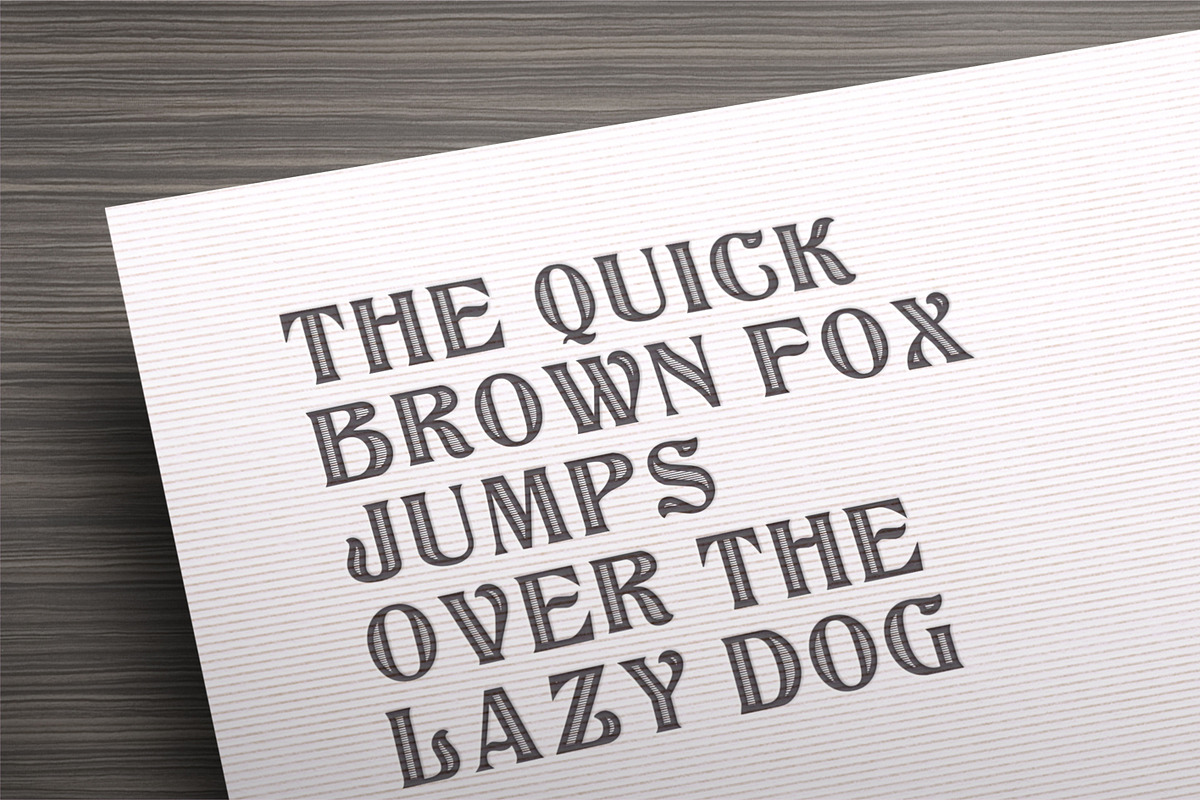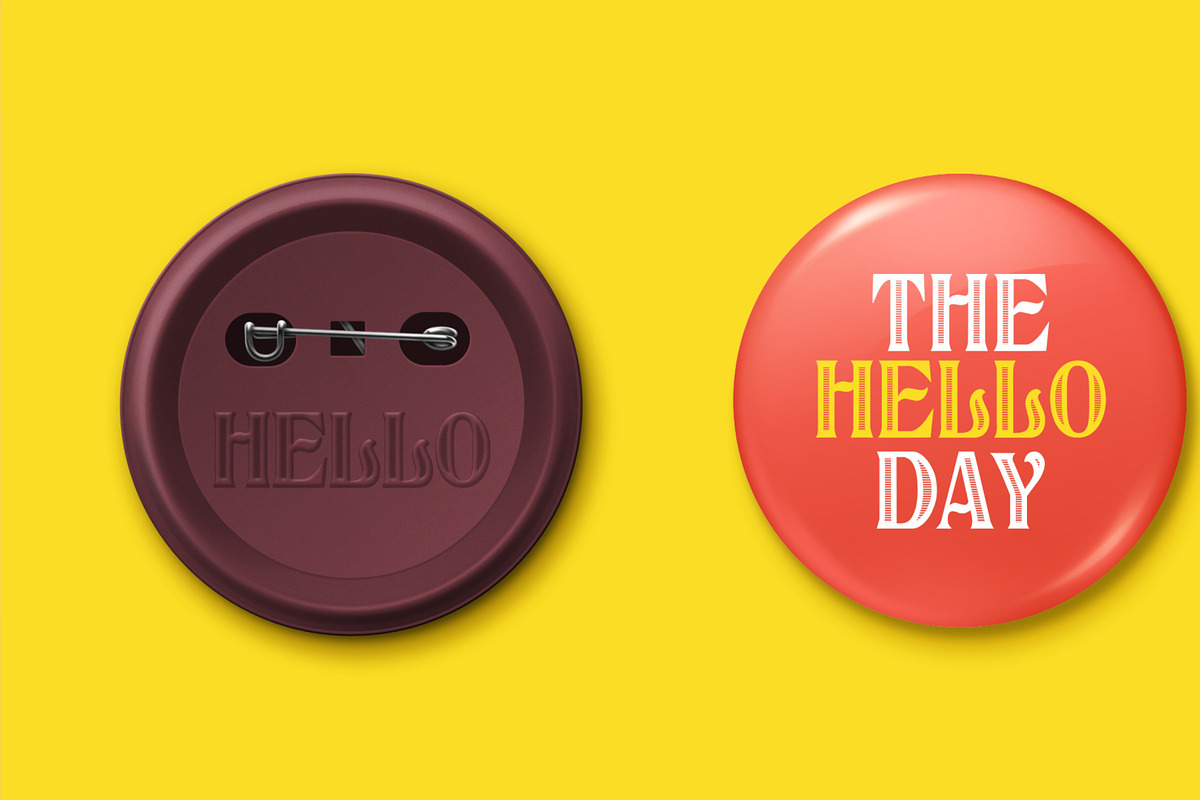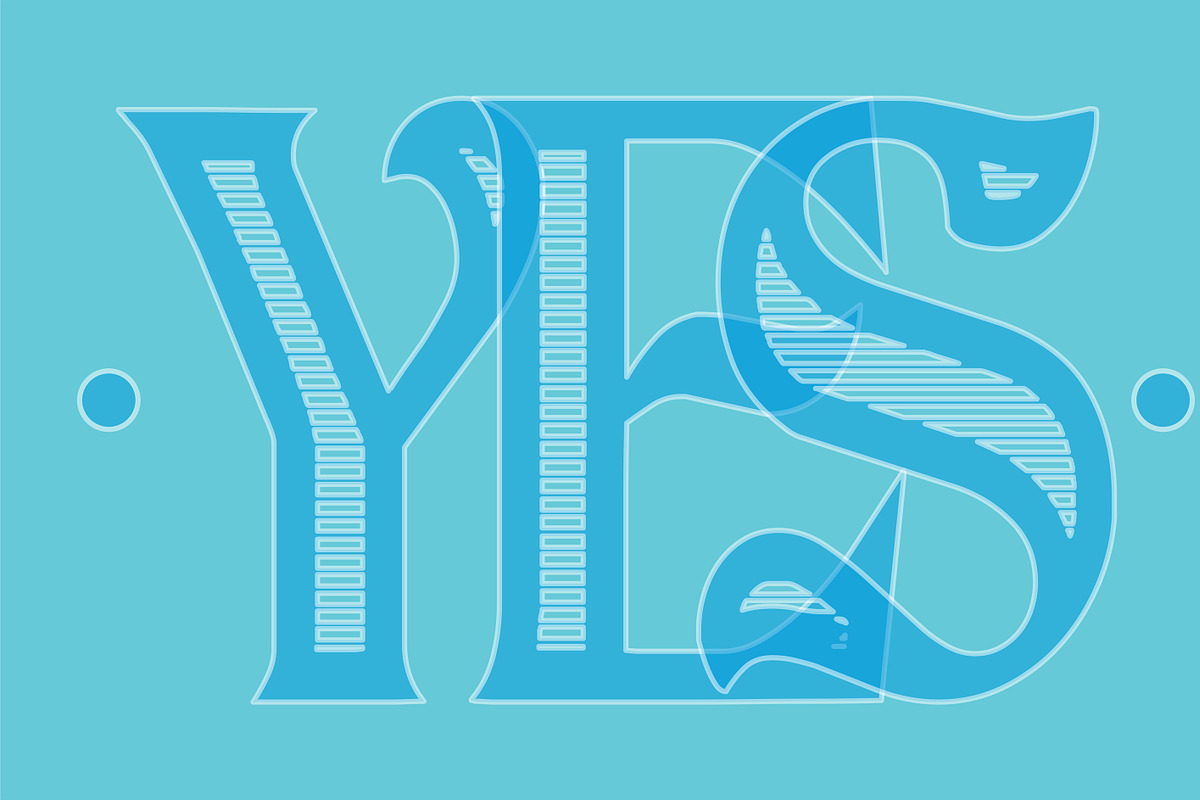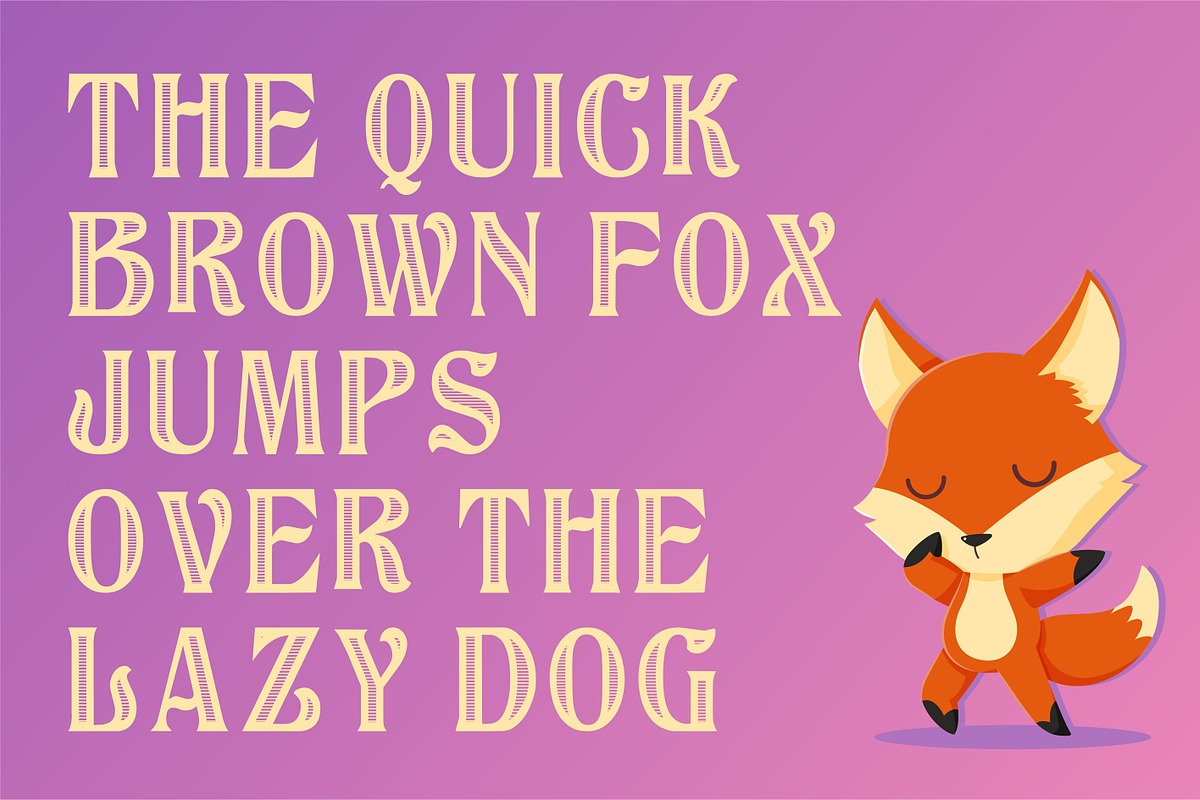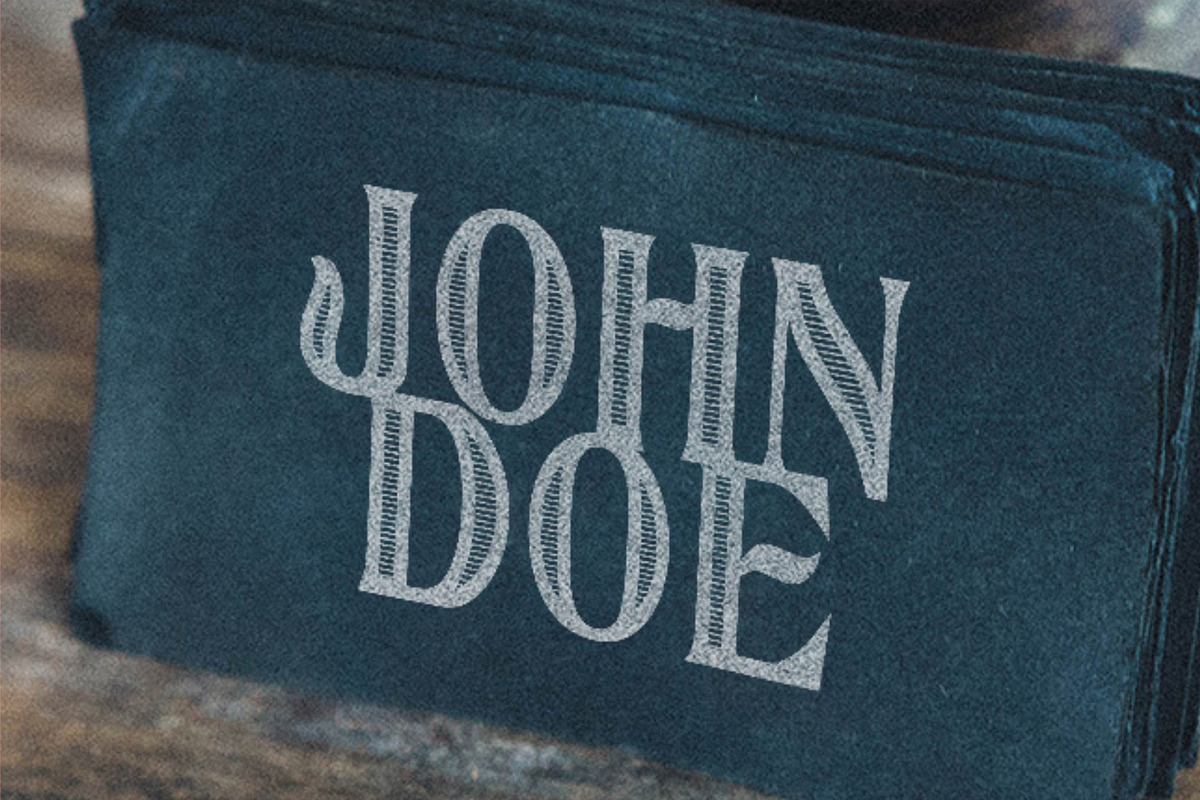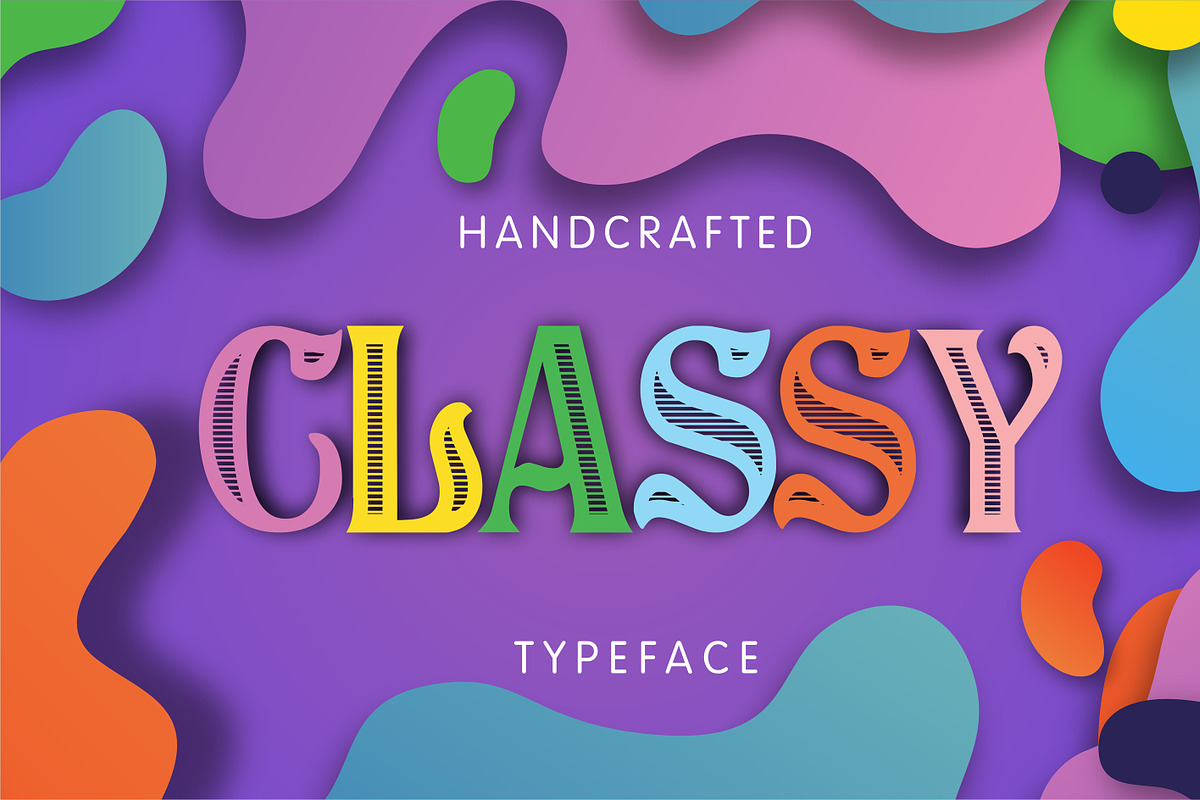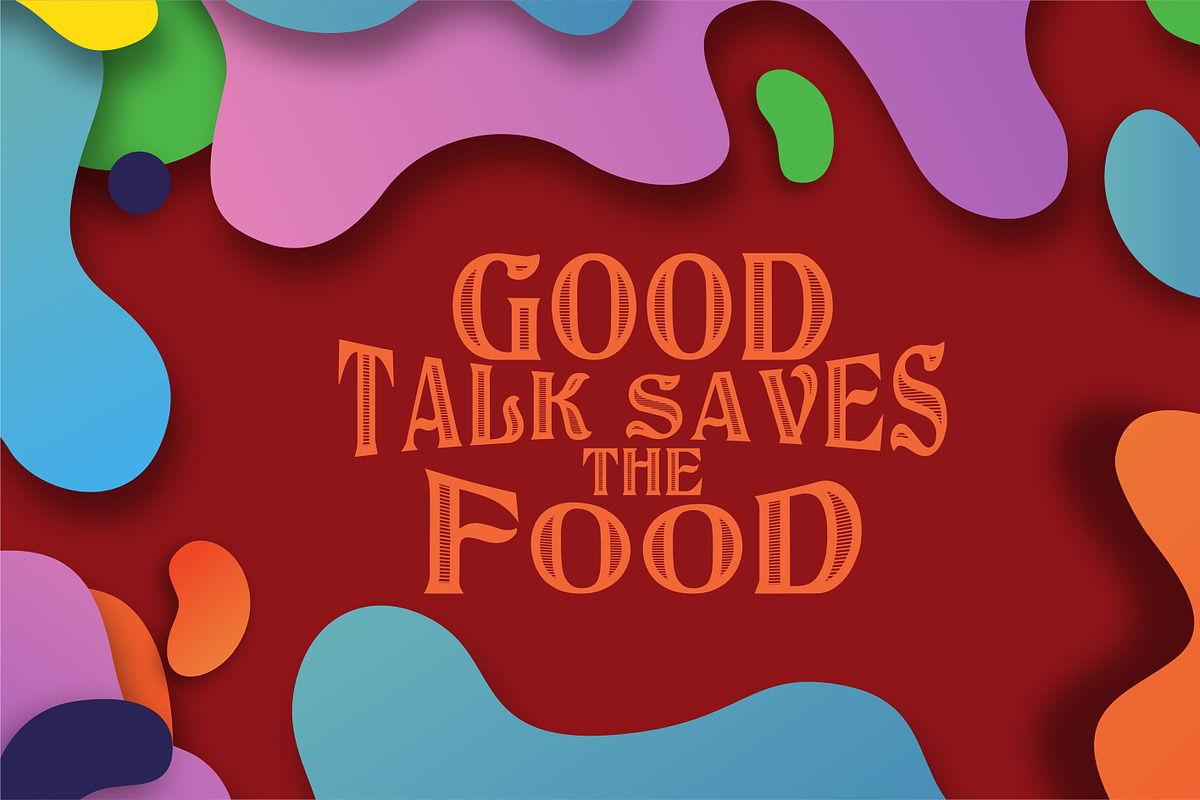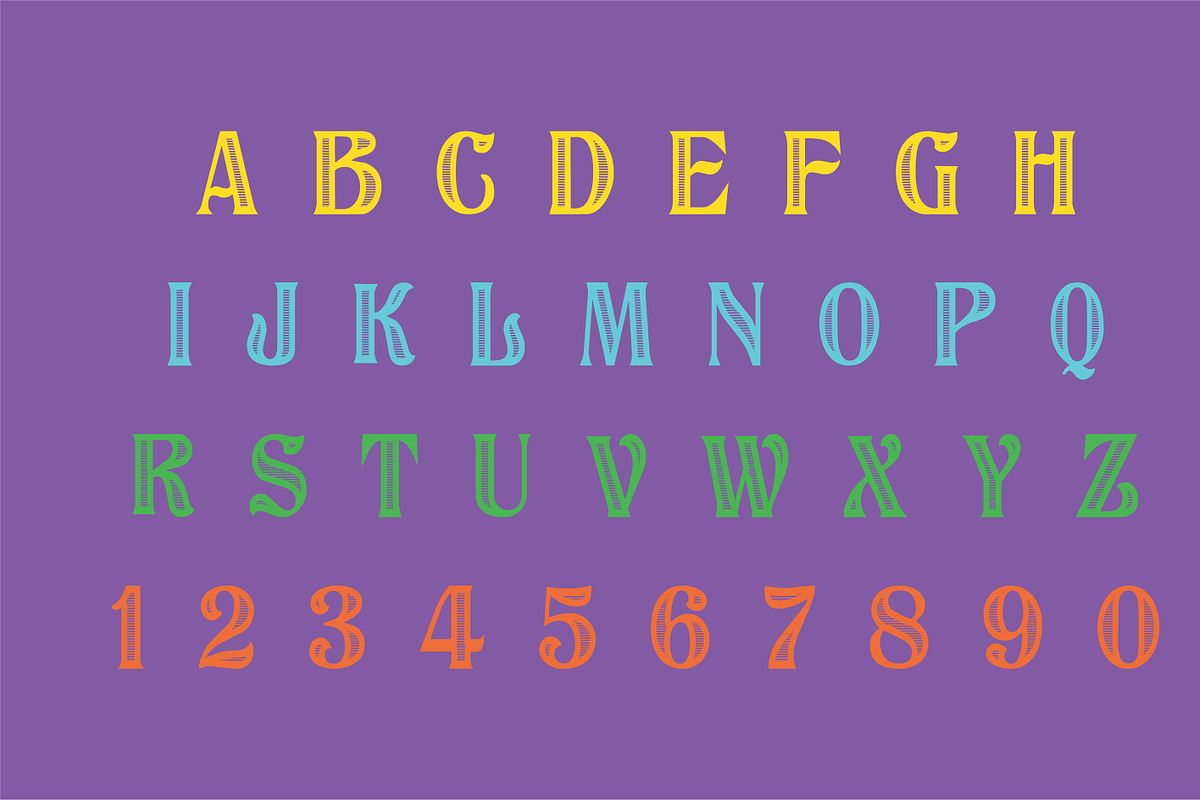
Classy - Vintage Font
ClassyNew classy font is out for a special need of attractively and posh design of font families. Great fancy looking letters in this typeface can attract anyone as the vision of this font is very interesting as well as design. This font could be used for the headings in old style or for book cover, could be huge poster design or small postcard this font could be used in many designs limited only by your fantasy. Mild corners of letters are combined with the bold stylish letter parts. Thick parts of the glyphs have stripes in it which makes the font a display style, but of course there are billions of possibilities to be incorporated in any design depending on your needs. Please refer to the list of possible uses we have created to help designers with inspiration and add your idea in comments section below.
Short list of possible uses for inspiration:
Book covers or inside chapters section heading
Posters or postcards design
Party decorations and congratulation cards
Invitation letters and business envelopes
Text headings and graphic themes designs